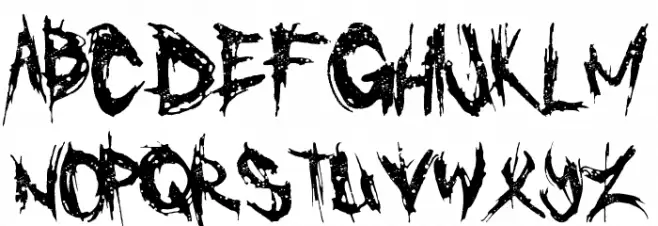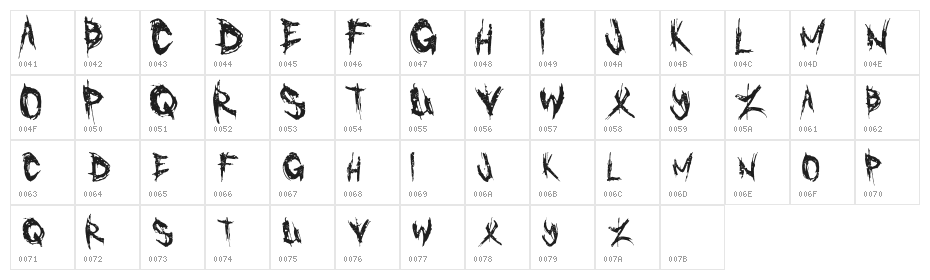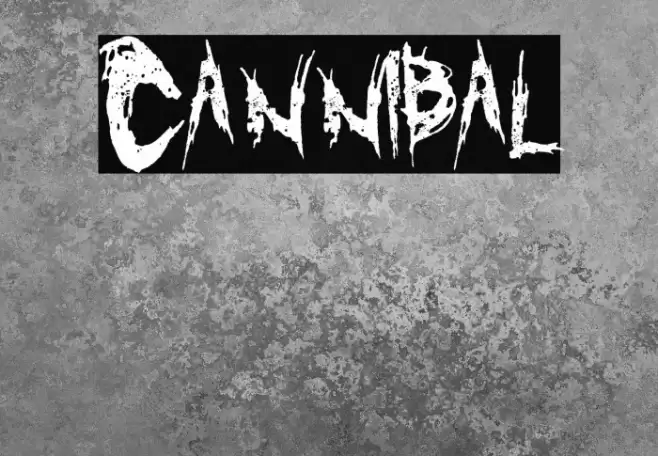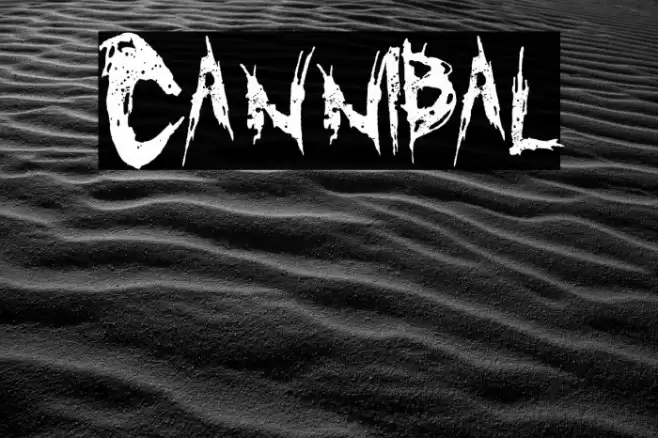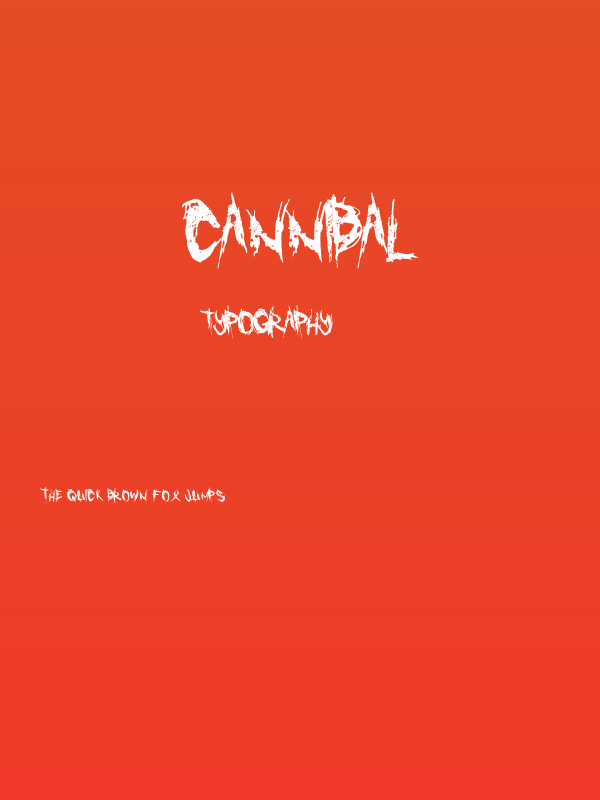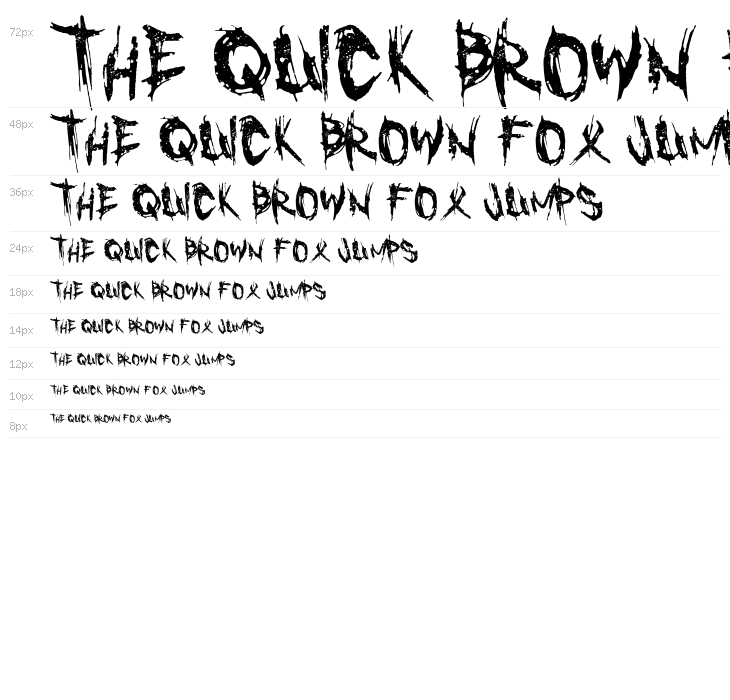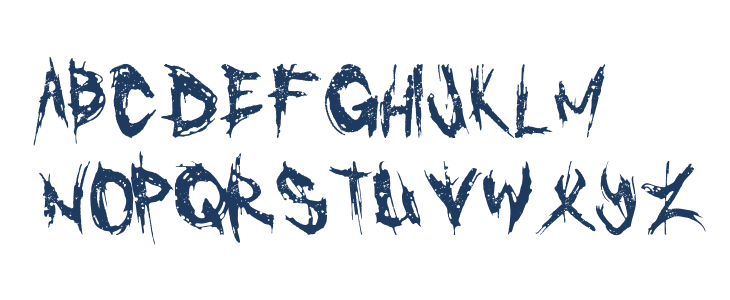
Cannibal Font
Cannibal Description
This font features a highly distressed and chaotic appearance, with jagged edges and irregular strokes that give it a raw, grunge-like aesthetic. The characters are bold and impactful, with a hand-drawn quality that suggests a sense of urgency and intensity. The uneven texture and splatter-like details contribute to its edgy and rebellious style, making it stand out as a statement piece. It's ideal for projects that require a dramatic and unconventional look, such as horror-themed designs, music album covers, or edgy branding materials. The font's unique style captures attention and conveys a sense of boldness and creativity.
| Overall Style | Grunge, Edgy, Rebellious |
| Use Case | Headlines, Posters, Logos |
| Proposed Projects | Horror-themed designs, music album covers, edgy branding materials, posters, and event flyers. |